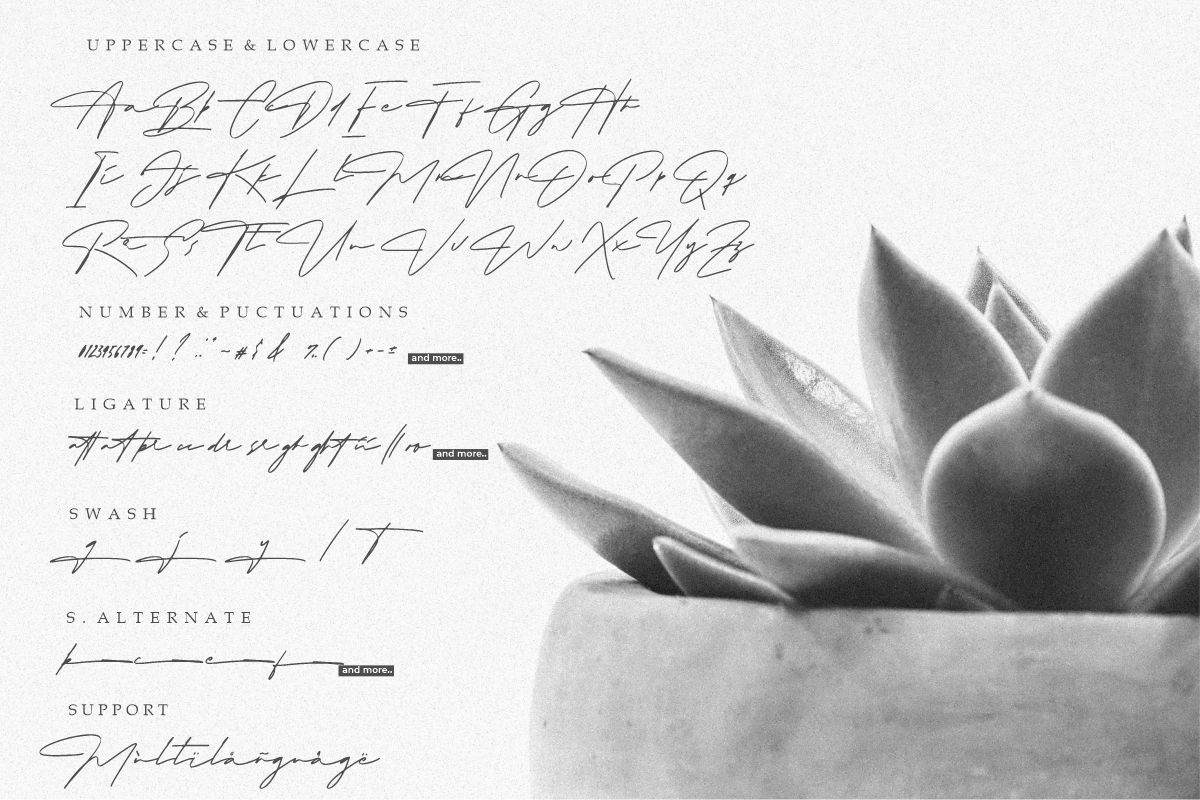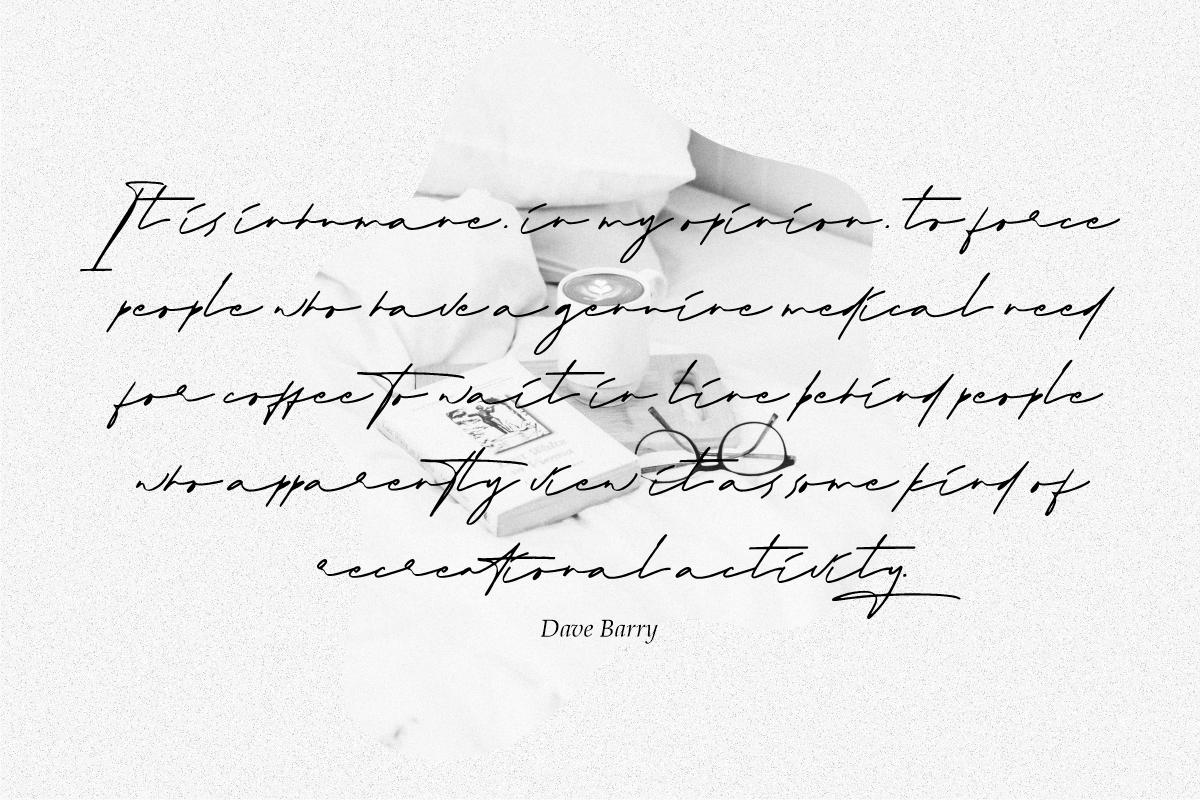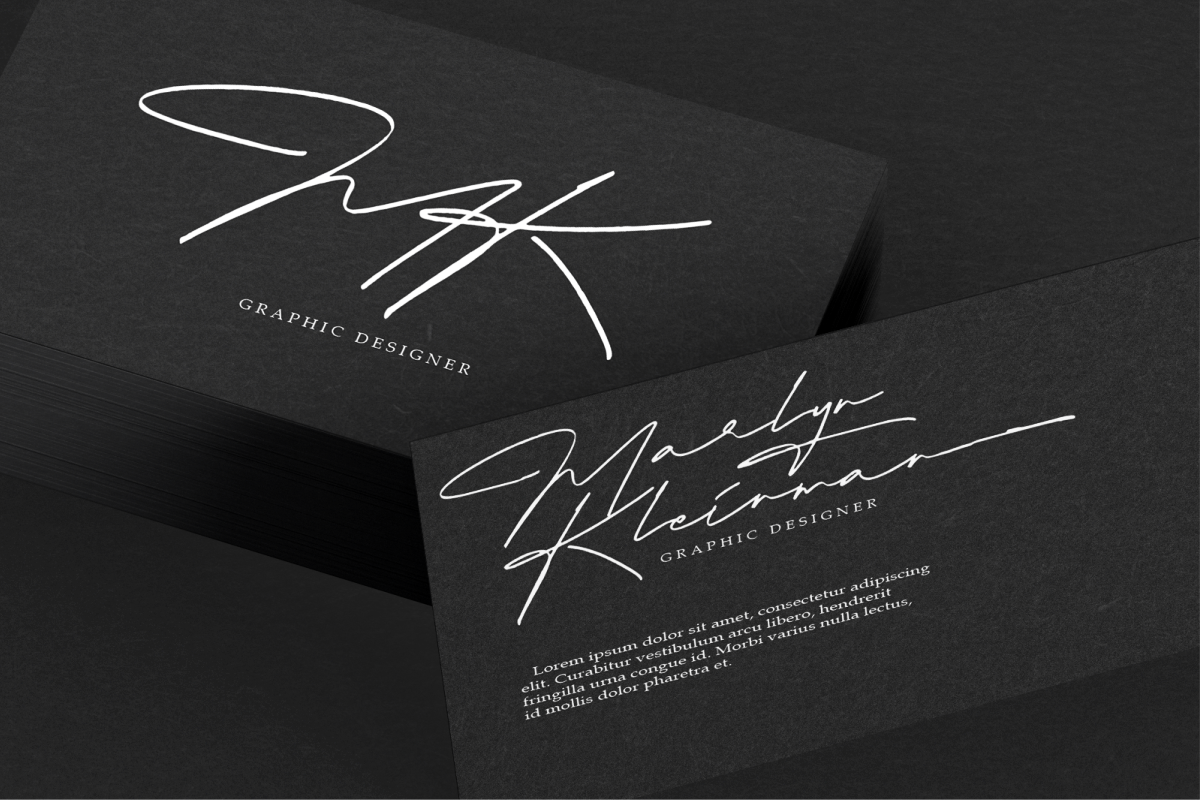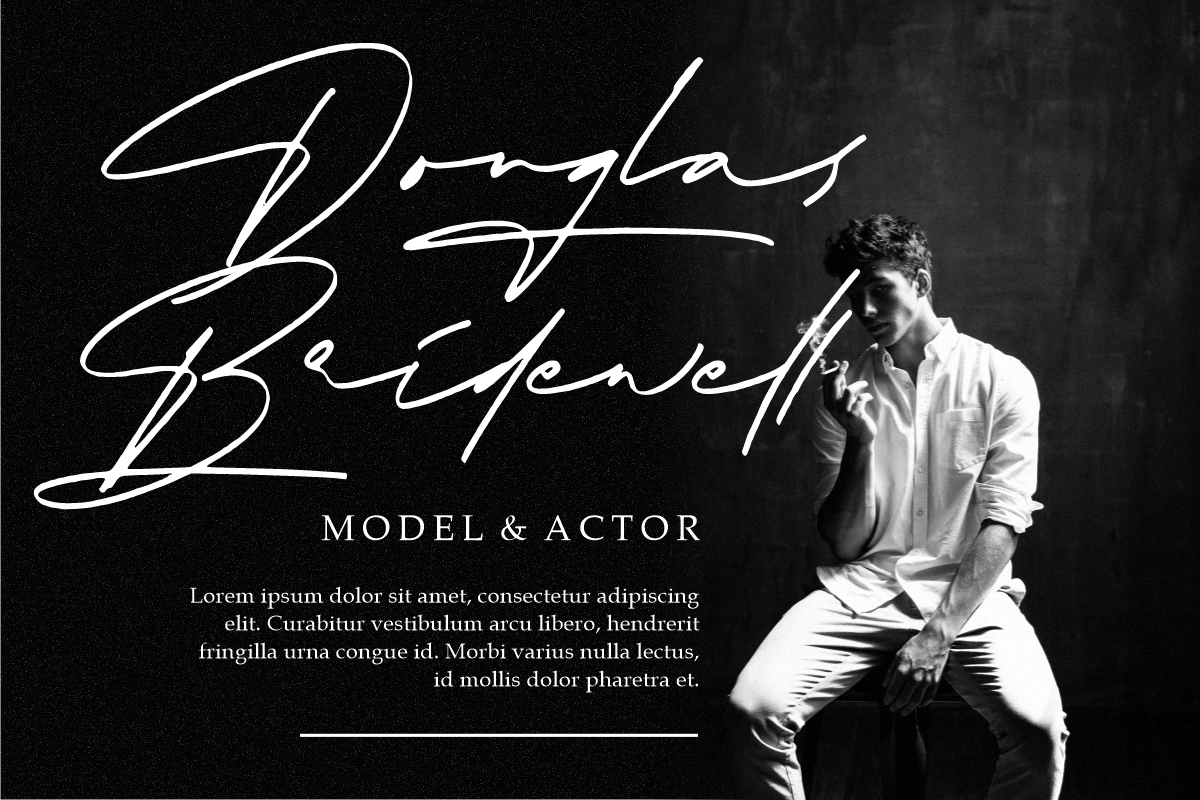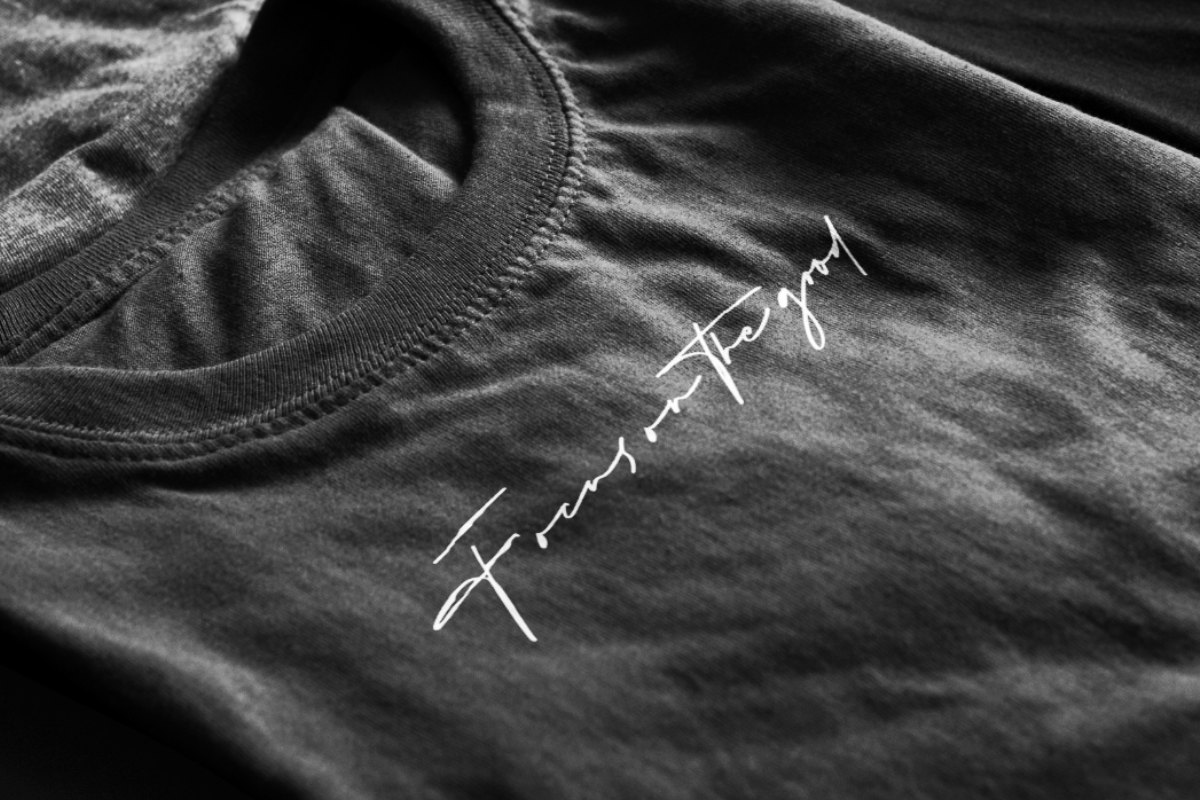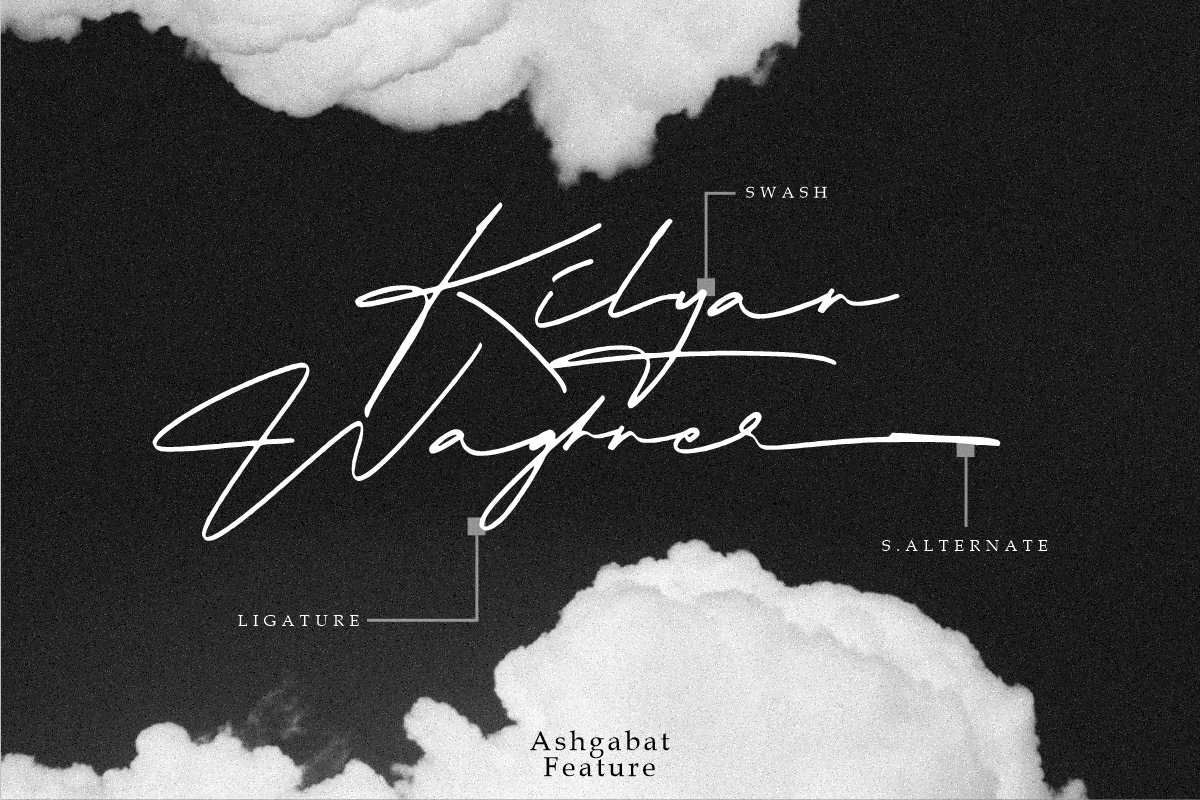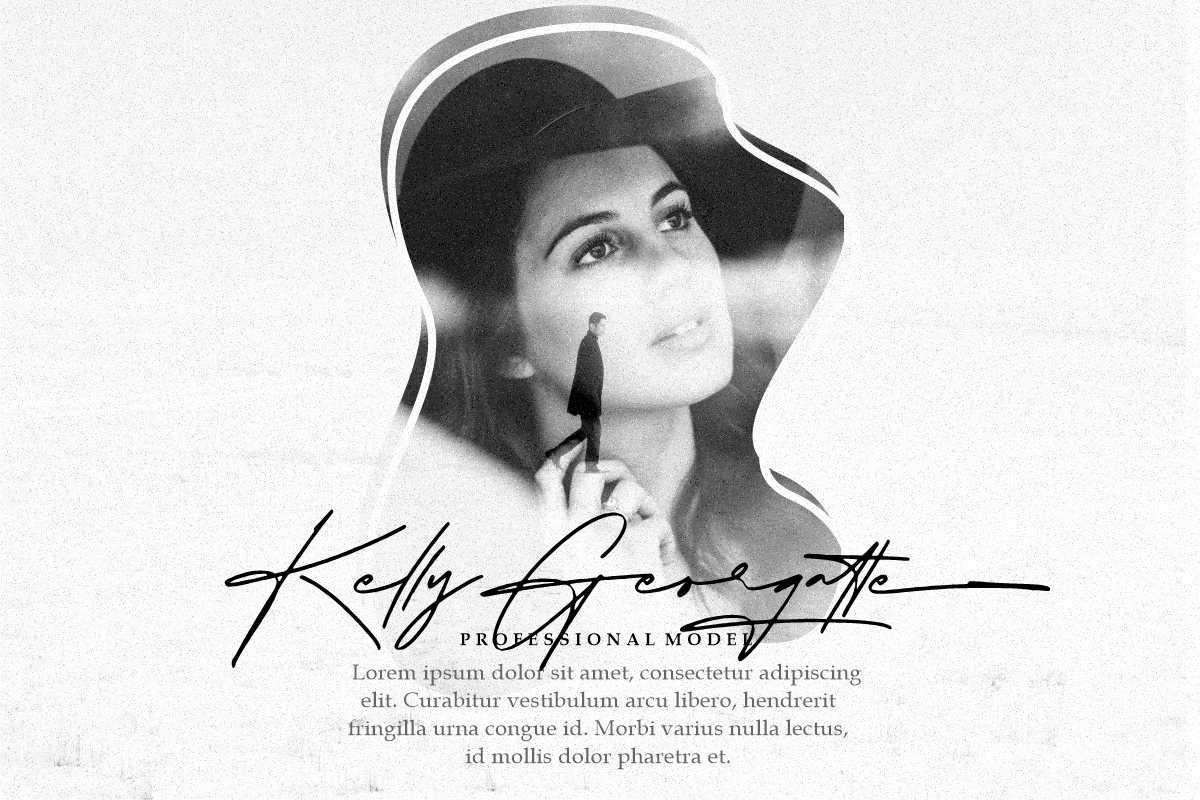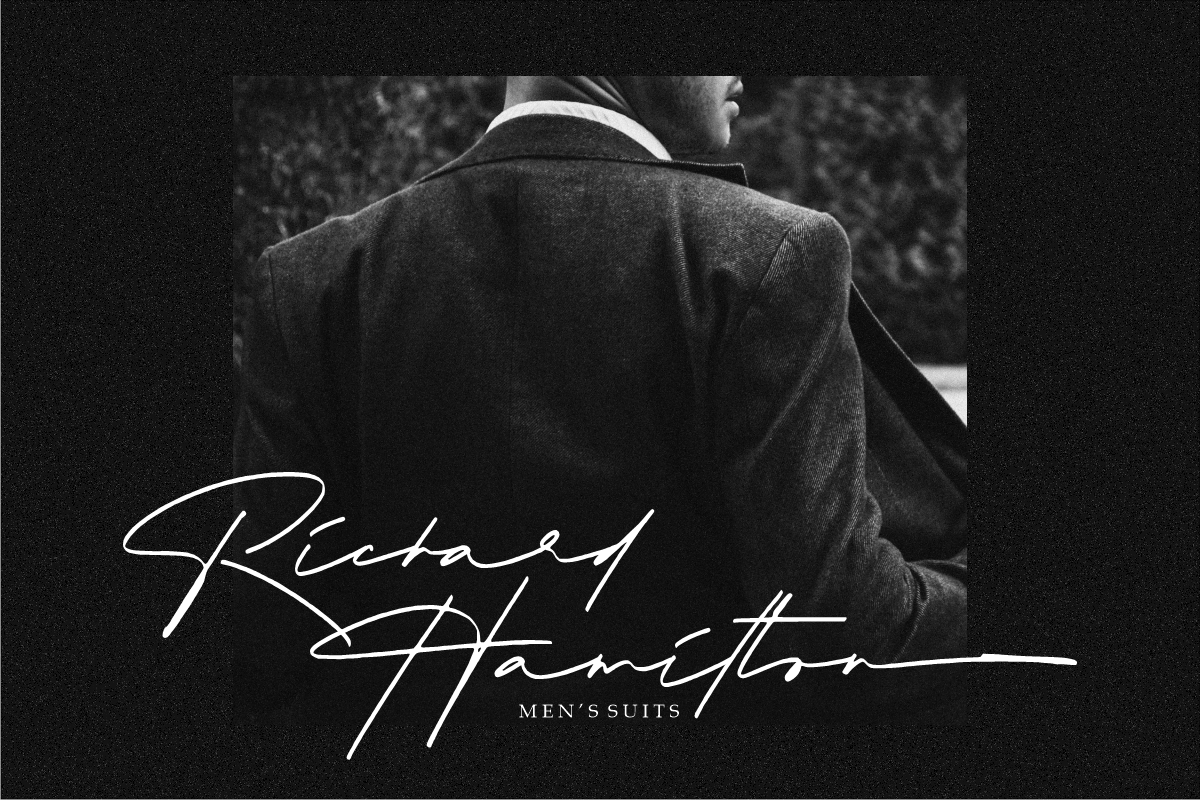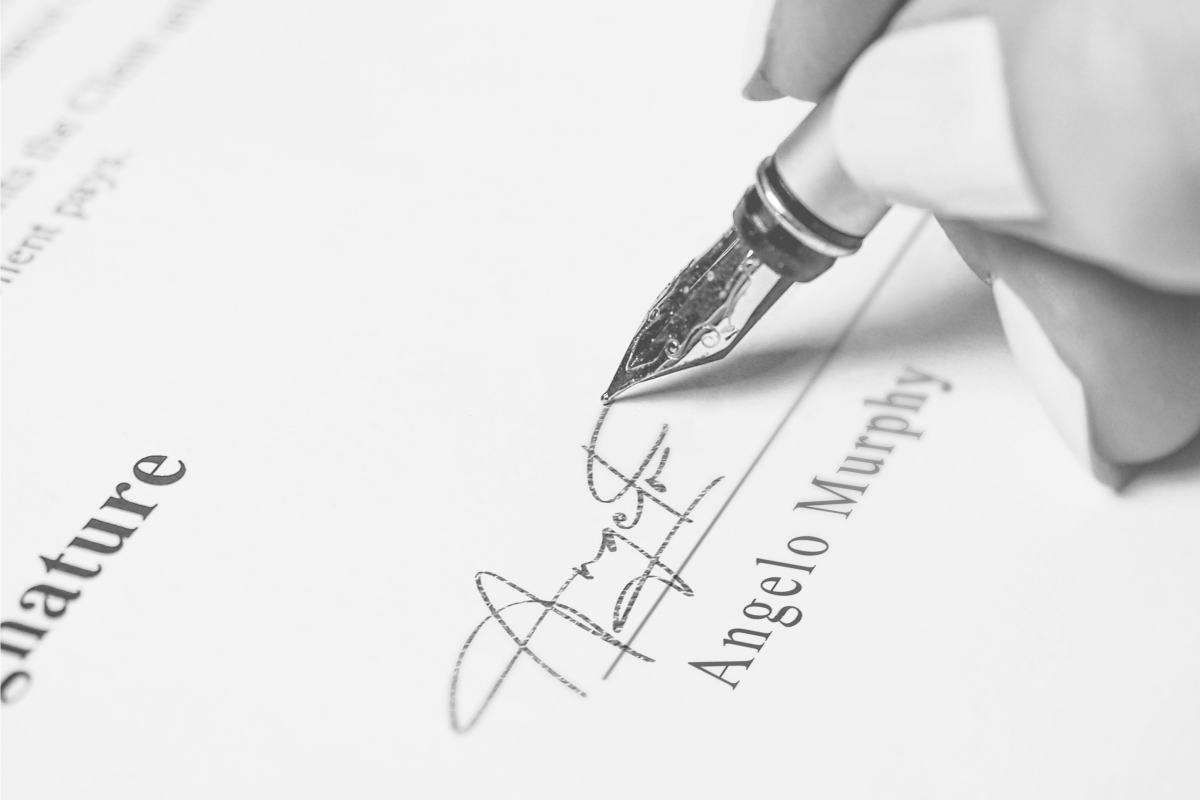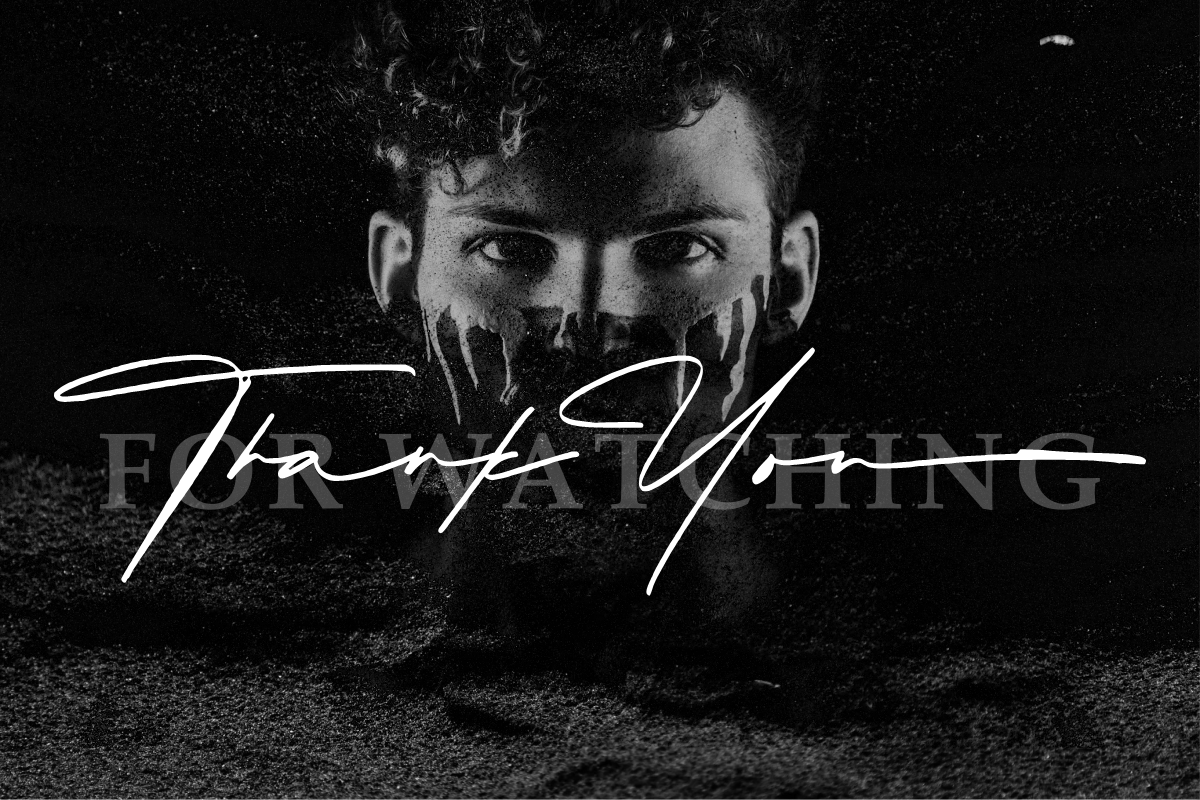
Ashgabat Natural Signature
Ashgabat is a signature style font that looks natural with a pen stroke-like texture. A bold and elegant looking font like the original signature style.
Ashgabat is perfect for branding projects, logos, wedding designs, social media posts, advertisements, product packaging, product designs, labels, photography, watermarks, invitations, stationery, and any project that requires a sense of handwritten signature.
Uppercase, Lowercase, Numerals & Punctuations, Stylistic Alt, Swash Ligature, Multilanguage